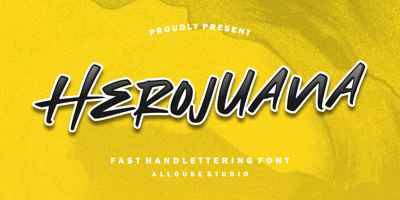
Herojuana
Herojuana font
Herojuana Font Family was designed by Fachrizal Yusuf and published by Allouse Studio. Herojuana contains 1 styles and family package options. Herojuana a Fast Handlettering Font.Herojuana is perfect for any tittles, logo, product packaging, branding project, megazine, social media, wedding, or just used to express words above the background.Herojuana also come with Multi-Lingual Support.Enjoy the font, feel free to comment or feedback, send me PM or email. Thank you!